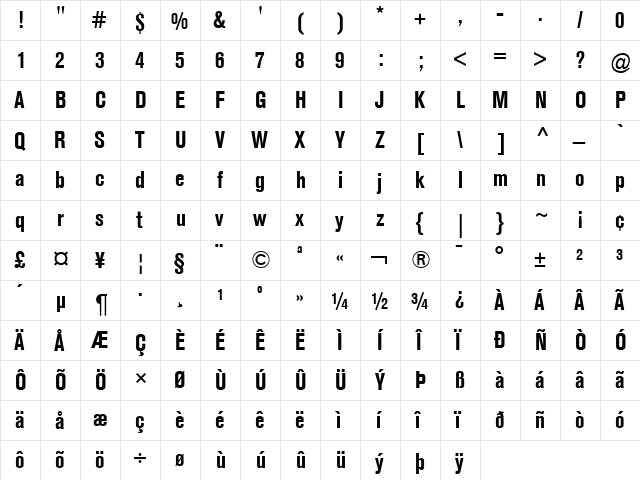
Berthold Akzidenz Grotesk BE Regular
Design Context for Berthold Akzidenz Grotesk BE Typeface
Berthold Akzidenz Grotesk BE takes a clean, functional approach — its unadorned letterforms prioritise legibility and work reliably across screen and print environments.
Font Pairing: Works well alongside a characterful serif or display font that can carry the expressive load while Berthold Akzidenz Grotesk BE handles the functional copy.
Pro Tip: Pair Berthold Akzidenz Grotesk BE with a display or serif font for headlines — its neutral character makes it an excellent supporting player in complex typographic systems.